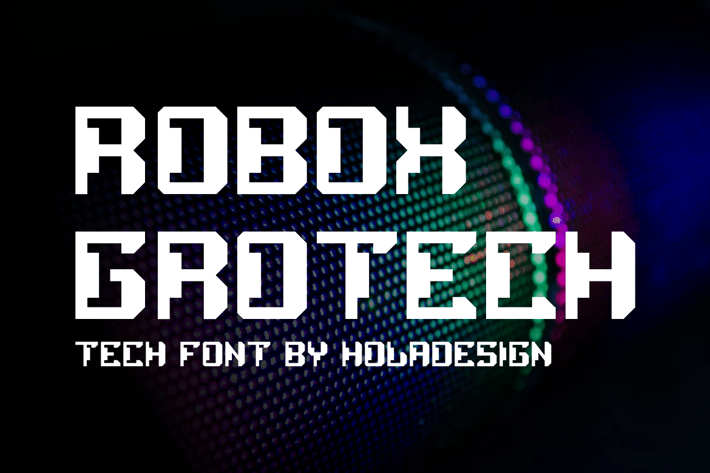
Robox Grotech - Cyber & Tech Font
Black Desgron Font is unique . Ready to use for your design like labeling, movie sceen, poster, movie title, gigs, album covers, logos, and much more.